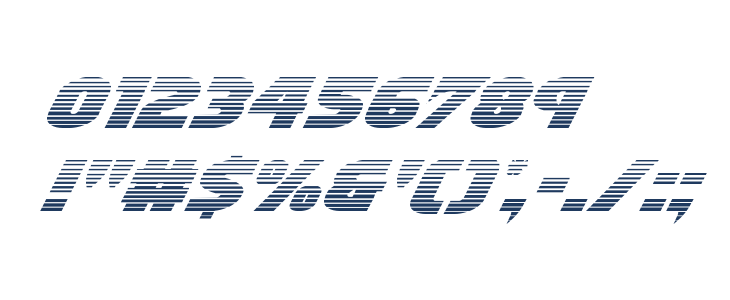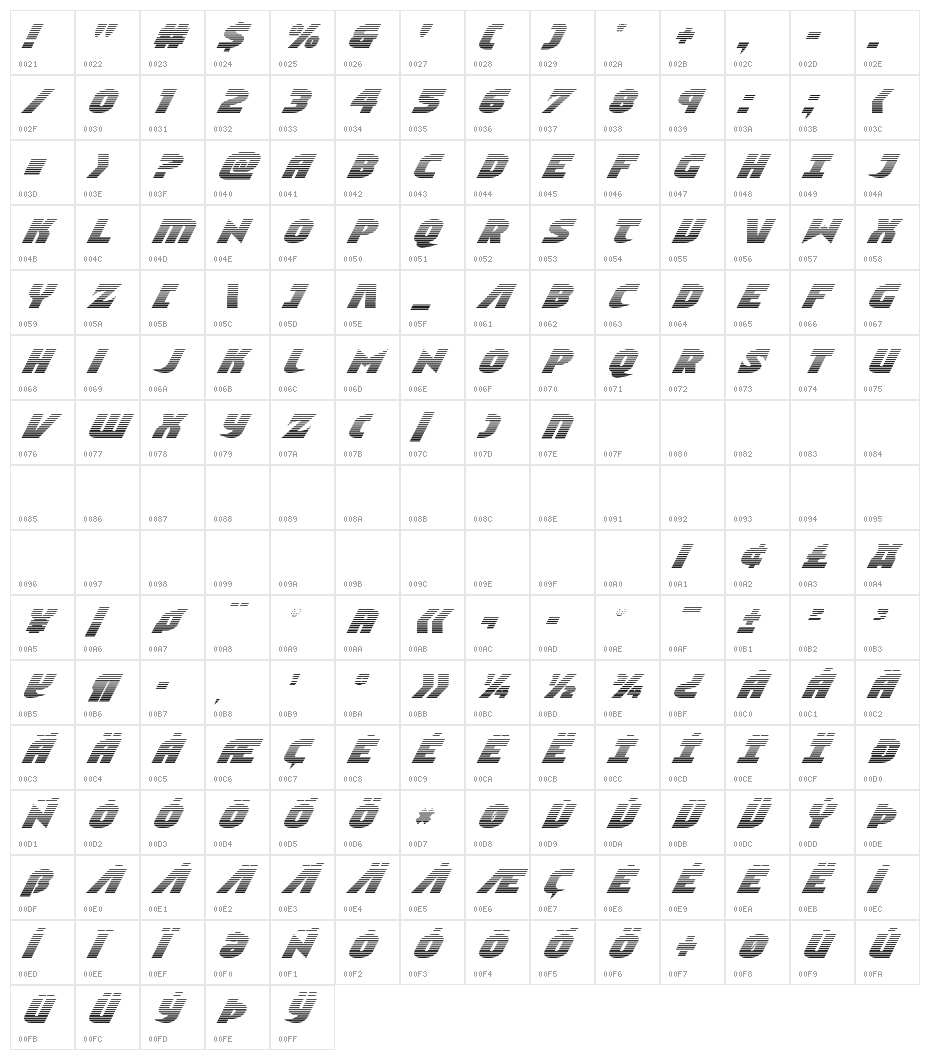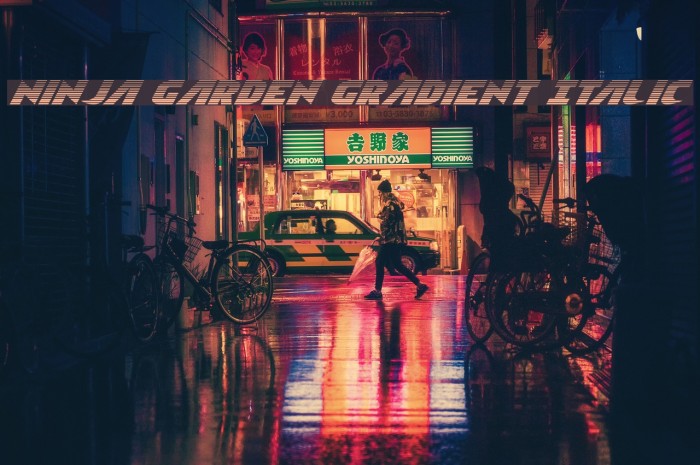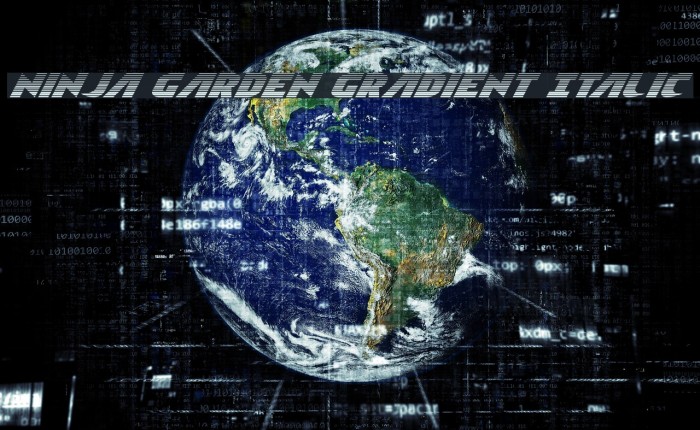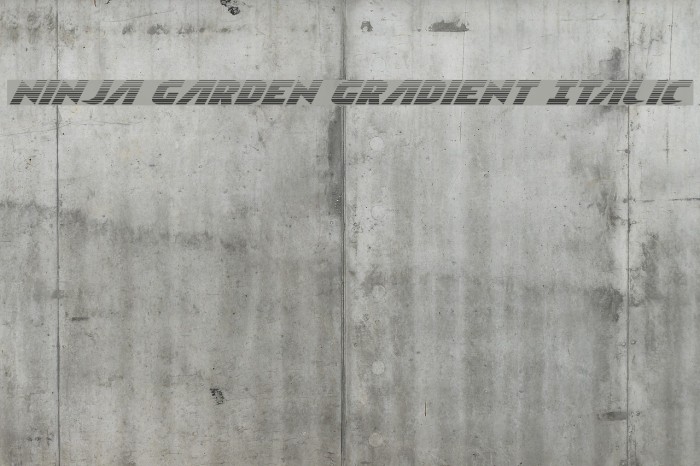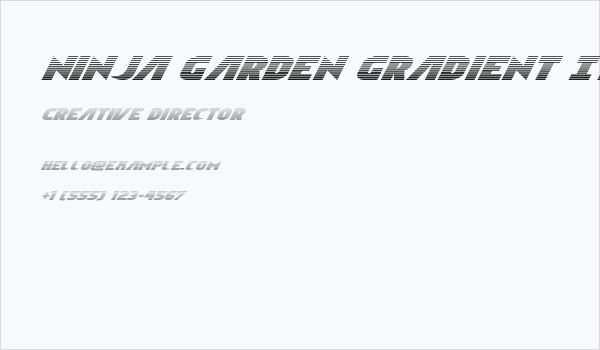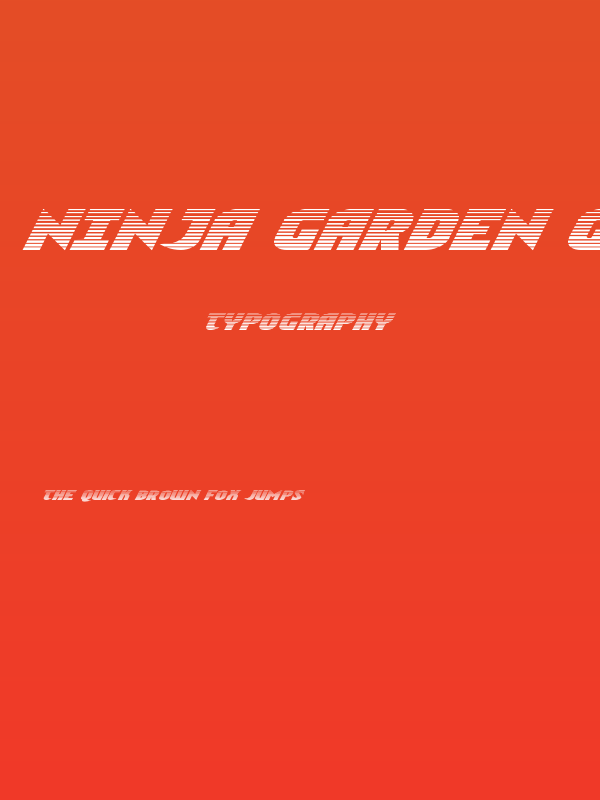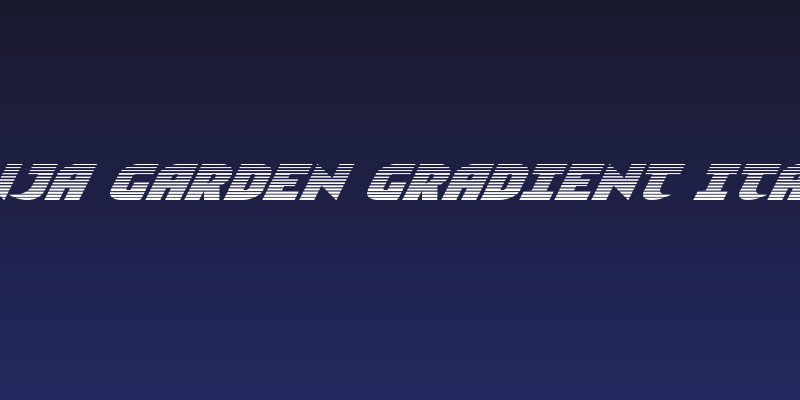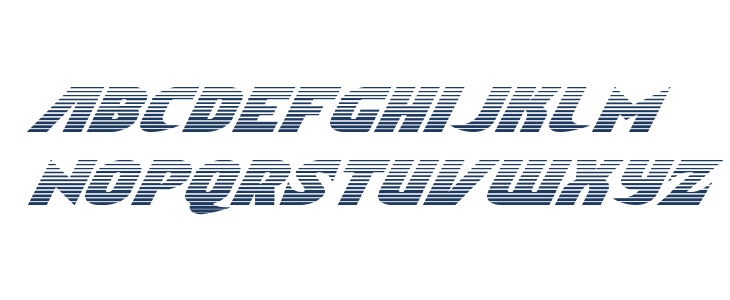
Ninja Garden Gradient Italic Font
Ninja Garden Gradient Italic Description
This font features a dynamic and modern design with a distinct italic slant, giving it a sense of motion and energy. The characters are composed of horizontal lines that create a gradient effect, adding depth and a futuristic feel. The bold strokes and angular shapes contribute to its striking appearance, making it ideal for attention-grabbing designs. The font maintains a consistent width across characters, ensuring readability while preserving its unique style. The combination of boldness and gradient lines makes it suitable for projects that require a modern and edgy look.
Proposed ProjectsIdeal for sports branding, video game titles, tech product packaging, and modern posters.